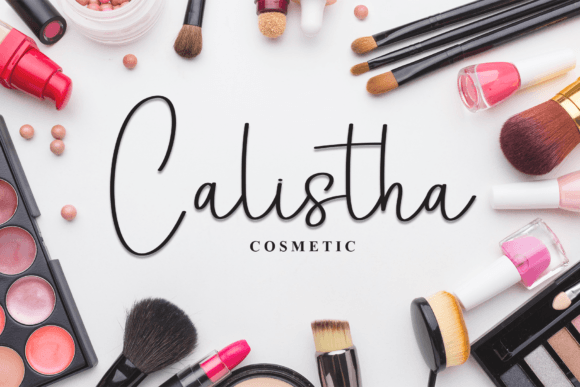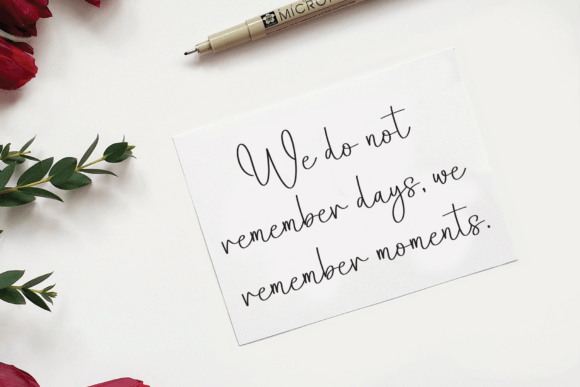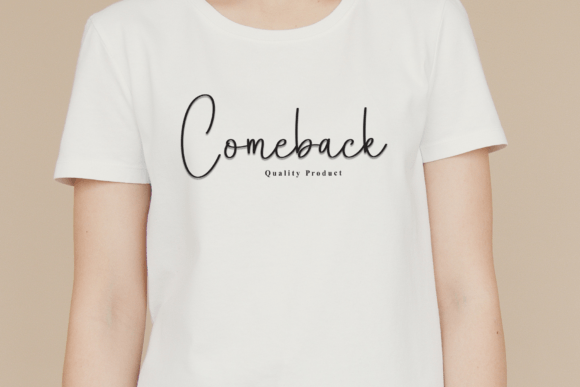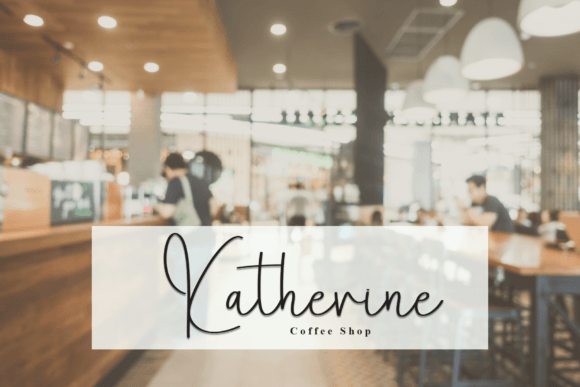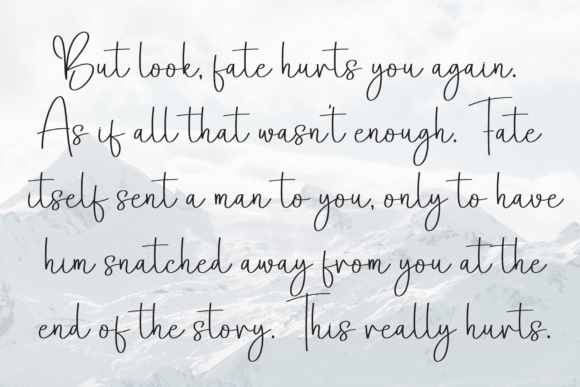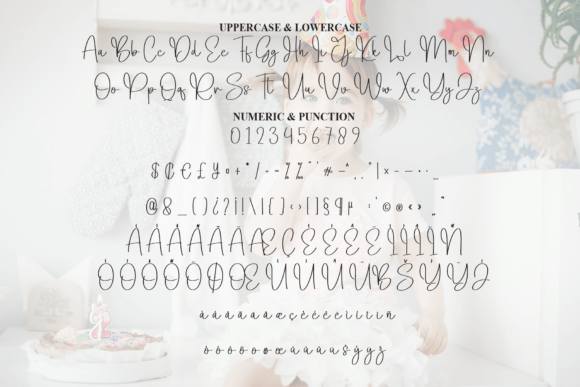
Unleashing the Charm of Handwritten Style: Introducing Babyday Font
As designers, we’ve all been there – staring at a blank page, waiting for inspiration to strike. It’s in those moments of creative block that we often find ourselves longing for a font that captures the essence of handwritten elegance. The search is over, as we introduce you to Babyday Font – a stylish handwritten script font that exudes sophistication and charm.
Babyday Font is perfect for designers looking to add a personal touch to their work. With its fluid strokes and natural flow, this font brings a sense of warmth and creativity to any design. Whether you’re crafting invitations, branding, or social media graphics, Babyday Font is sure to captivate your audience with its unique charm.
What sets Babyday Font apart is its versatility and ability to elevate any design. Its elegant style makes it a valuable asset for designers, allowing them to create visually stunning pieces that reflect their personal touch.
Babyday Font Key Features
- Unique Characteristics: The Babyday Font features a unique, hand-drawn design with subtle imperfections, giving it a personal and whimsical touch.
- Customization Options: The font includes a range of customization options, including ligatures, swashes, and alternate characters, allowing designers to add a personal touch to their designs.
Babyday Font Review
As a designer, I was excited to dive into the Babyday Font and see what it had to offer. Overall, I think it’s a solid choice for any project that needs a cute and playful feel.
- Unique Character: The Babyday Font has a distinctive look that sets it apart from more generic fonts. It’s perfect for adding a touch of whimsy to a project.
- Good for Body Text: The font is clear and easy to read, even at smaller sizes, making it suitable for body text in a variety of contexts.
- Playful Feel: The font’s playful feel makes it a great choice for projects that need to convey a sense of fun and approachability.
- Limited Weight Options: The font only comes in a few weights, which may limit its versatility in certain projects.
- Not Suitable for Headlines: While the font is great for body text, it may not be the best choice for headlines due to its lack of impact and visual weight.
- Not Ideal for Formal Projects: The font’s playful feel may not be suitable for formal projects or those that require a more serious tone.
Overall, I think the Babyday Font is a great choice for projects that need a cute and playful feel. While it has some limitations, it’s a solid addition to any designer’s toolkit.
The Babyday Font is ideal for:
- Infographic design
- Wedding invitations
- Personalized gifts
Tips for Getting the Most Out of Babyday Font
To get the most out of Babyday Font, try:
- Combining it with playful illustrations and graphics. Alternatives to Babyday Font
- Select a bold font style to match the playful vibe.
- Choose a pastel color palette to complement the font.
- Add a cute illustration, such as a cartoon baby or a floral pattern, to enhance the design.
- Pair the font with a matching font style for the illustration to create a cohesive look.
- Use a subtle texture or pattern to add depth to the design.
Exploring the Babyday Font
Project 1: Whimsical Nursery Sign
Design a personalized nursery sign with a cute and playful message using the Babyday Font. This project combines typography with illustrations to create a unique and eye-catching design.
Project 2: Baby Shower Invitations
Create adorable baby shower invitations featuring the Babyday Font. This project combines typography with graphics to create a fun and festive design.